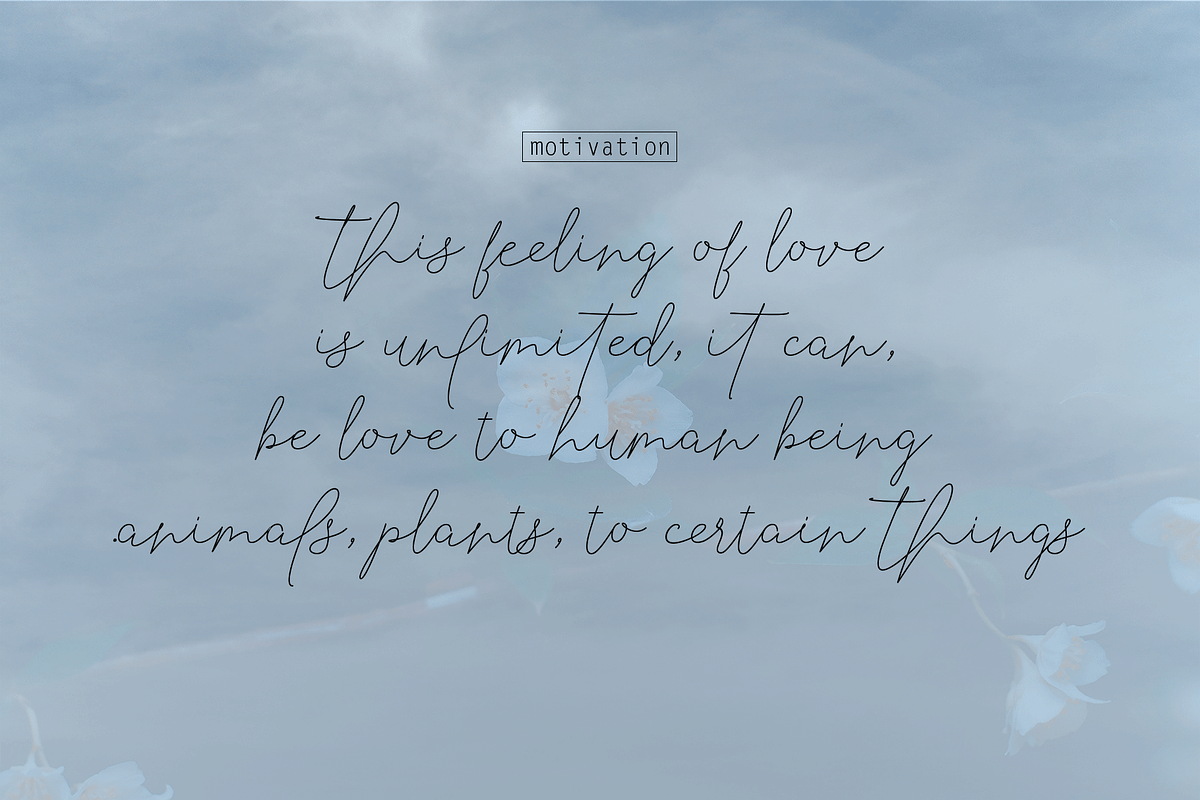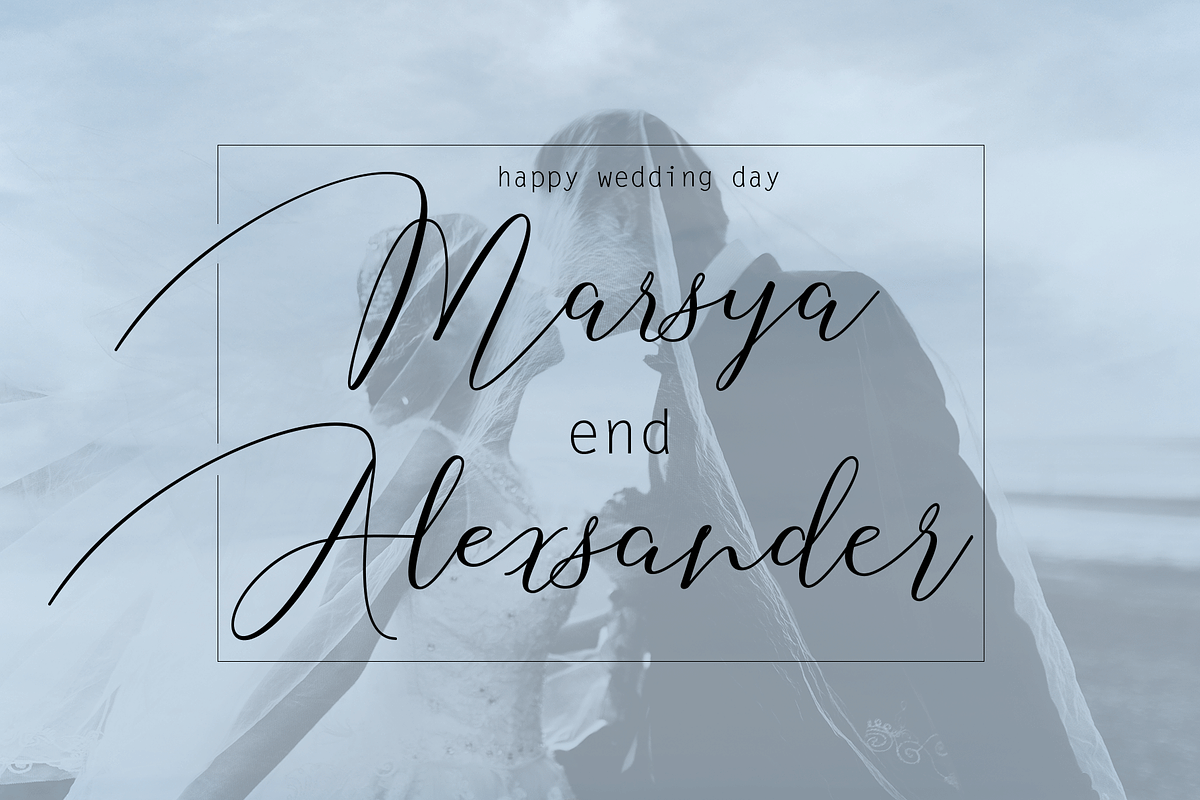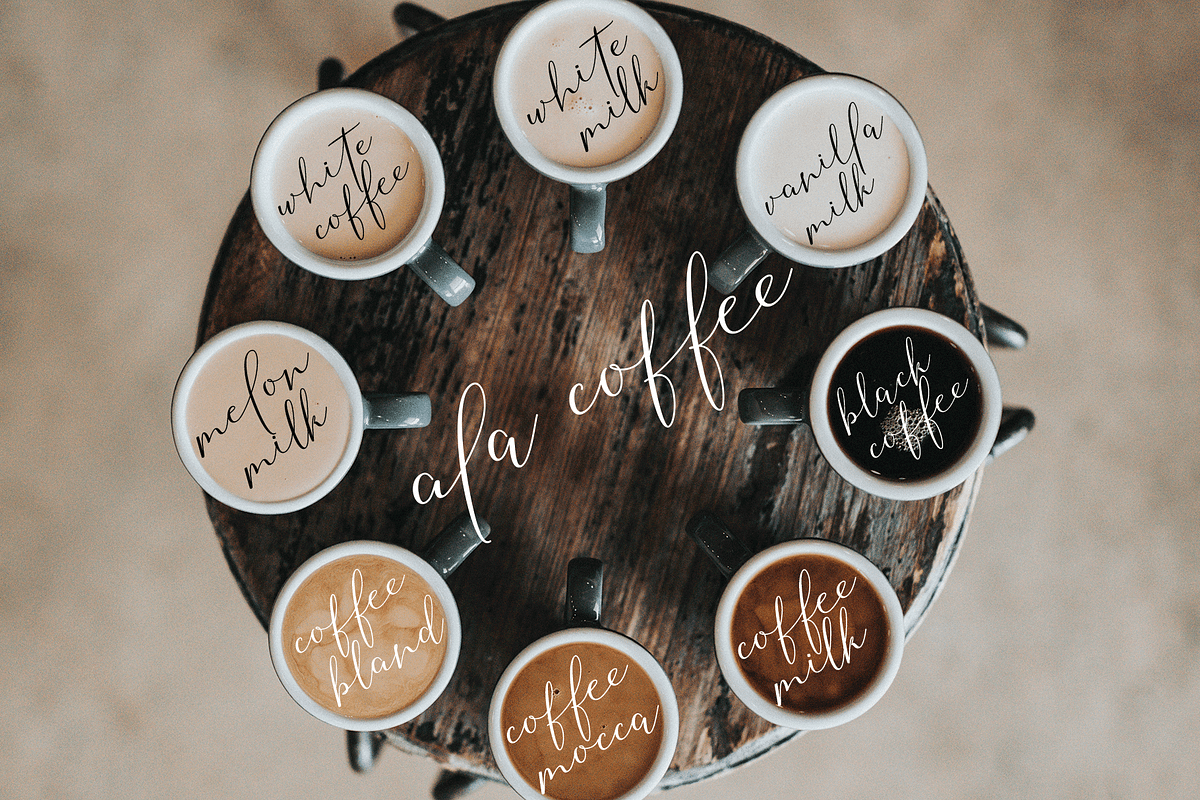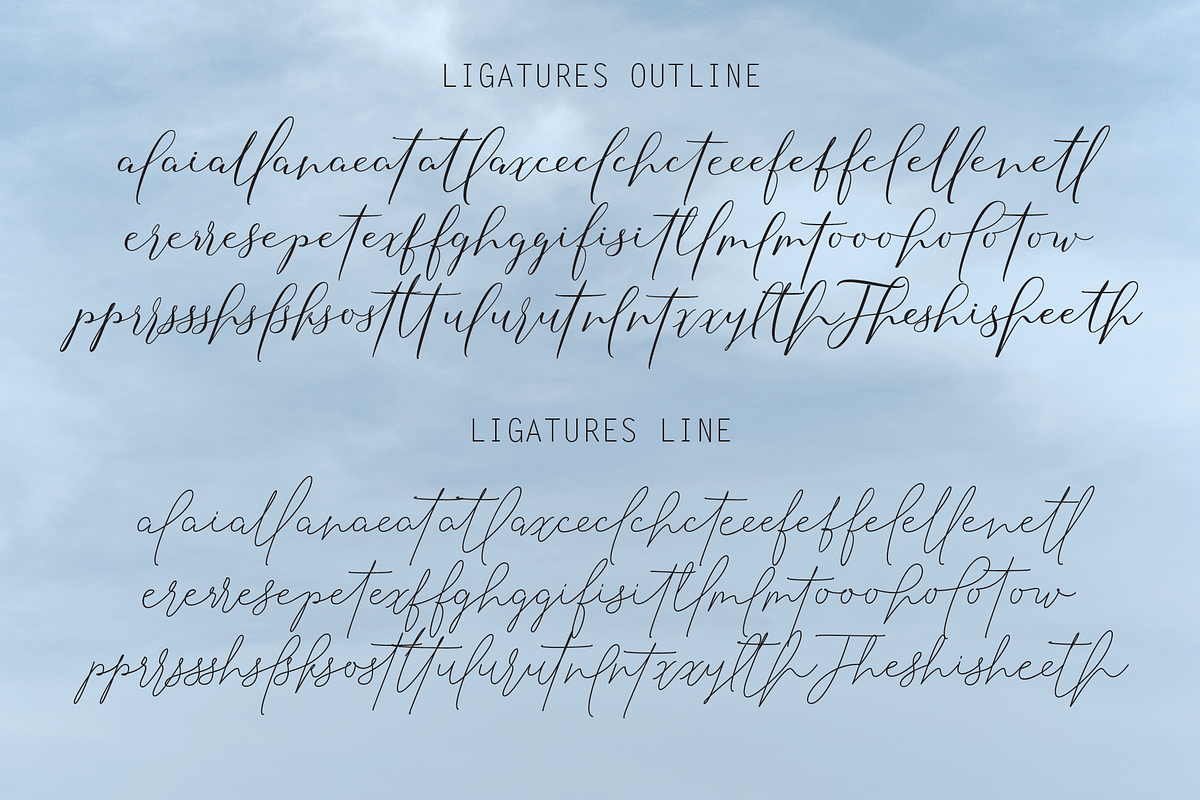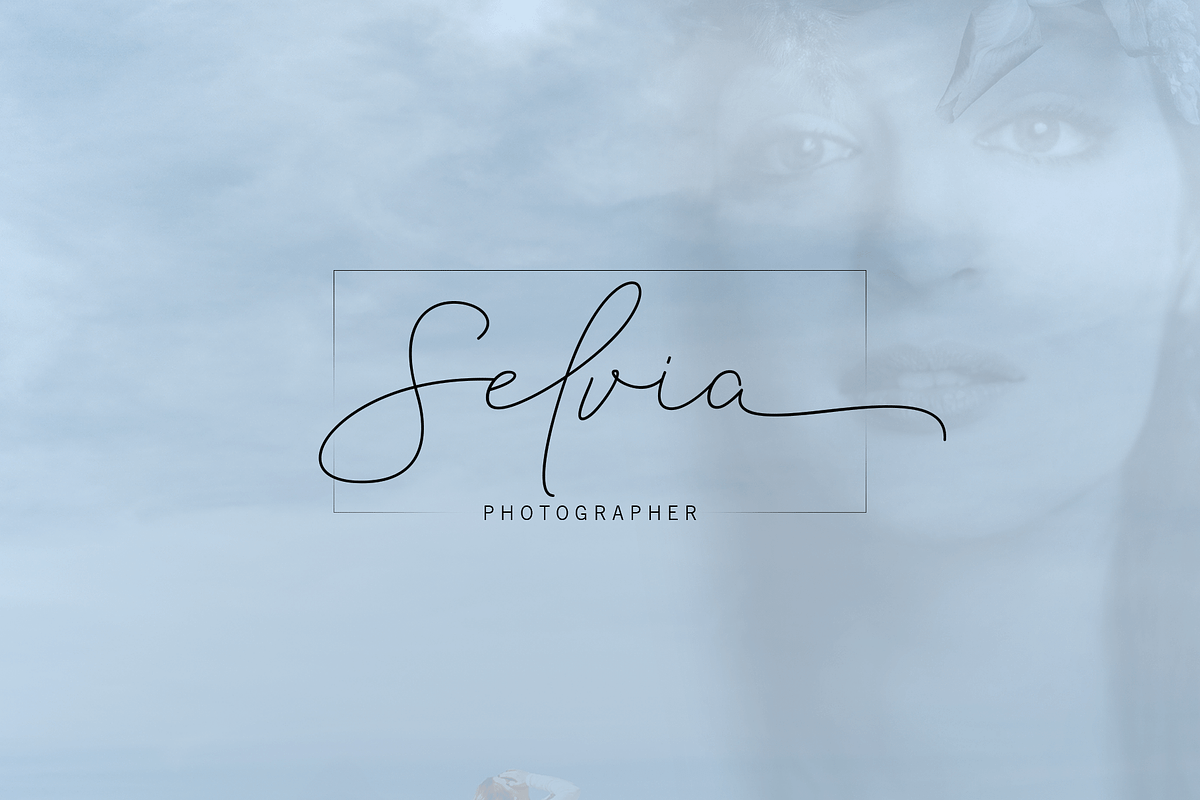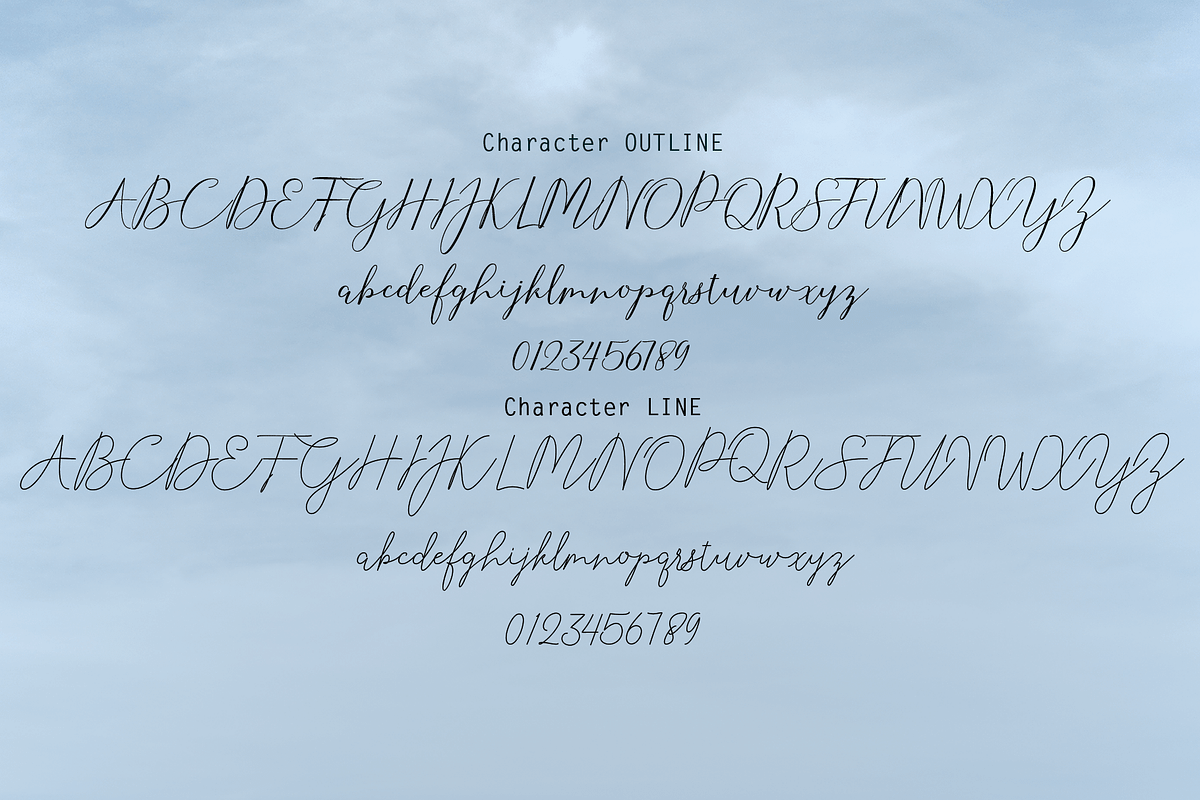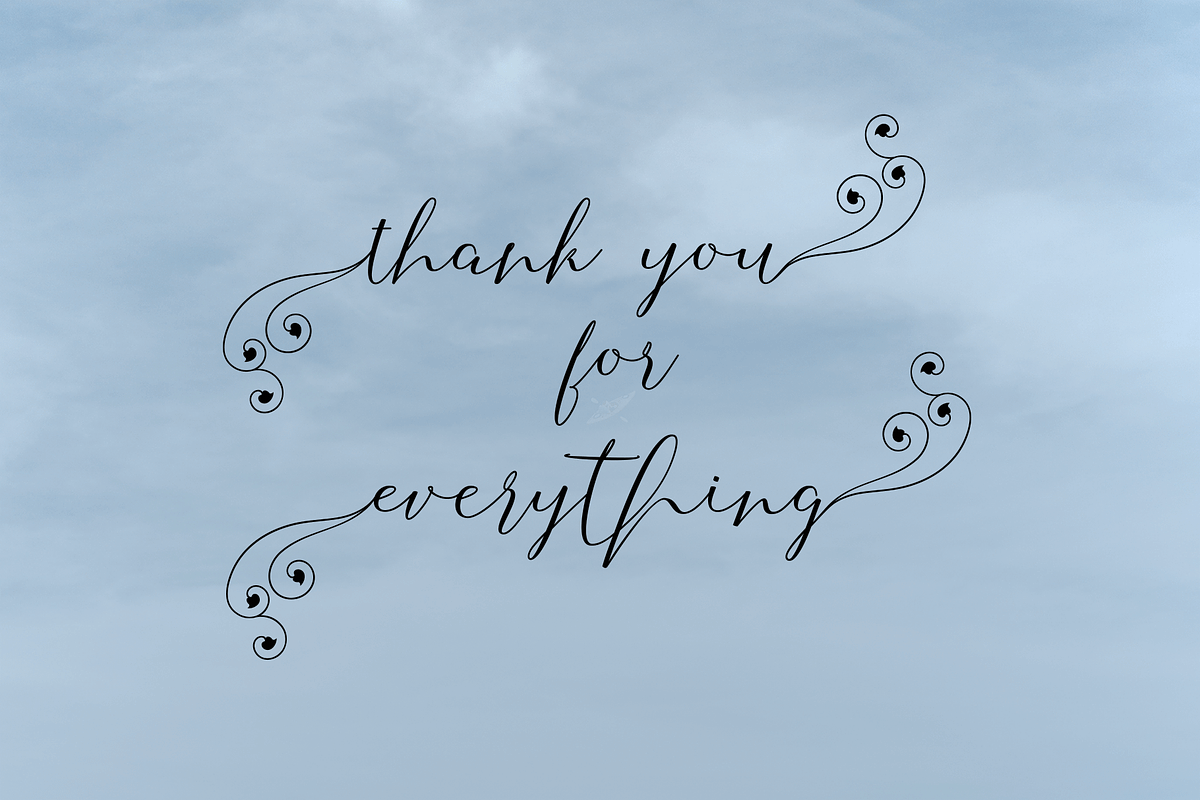
Selvia Font Duo
Selvia Font Duo a work that is purely a result of handwriting, has a natural characteristic. this is perfect for invitations, signatures, blogs, social media, business cards, product brands.
elegantly has two sets of letters, namely Stylistic standard and Stylistic Alternate. and includes uppercase and lowercase letters, numbers and punctuation marks, also equipped with 60 ligature.
Can be used for various purposes.such as headings, logos, wedding invitation, t-shirt, letterhead, signage, lable, news, posters, badges etc. OpenType features can be accessed by using OpenType smart programs such as Adobe Photo Shop, Adobe Illustrator, Adobe Indesign, Corel Draw and Microsoft Office
- elegantly has two sets of letters, namely Stylistic standard and Stylistic Alternate.
Why Selvia Font Duo is worth a look
Selvia Font Duo by danti fits naturally into Branding, posters, packaging, typography.